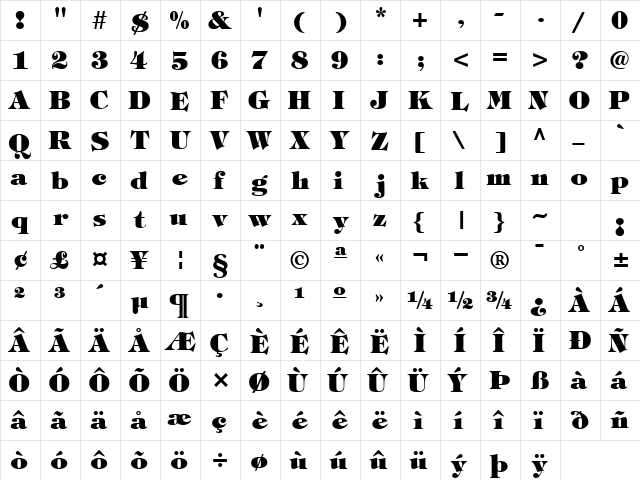
SophisticateUltraSSK Regular
Design Context for SophisticateUltraSSK Typeface
SophisticateUltraSSK offers clean, dependable letterforms without strong stylistic allegiance, making it a practical choice for designers who need flexibility.